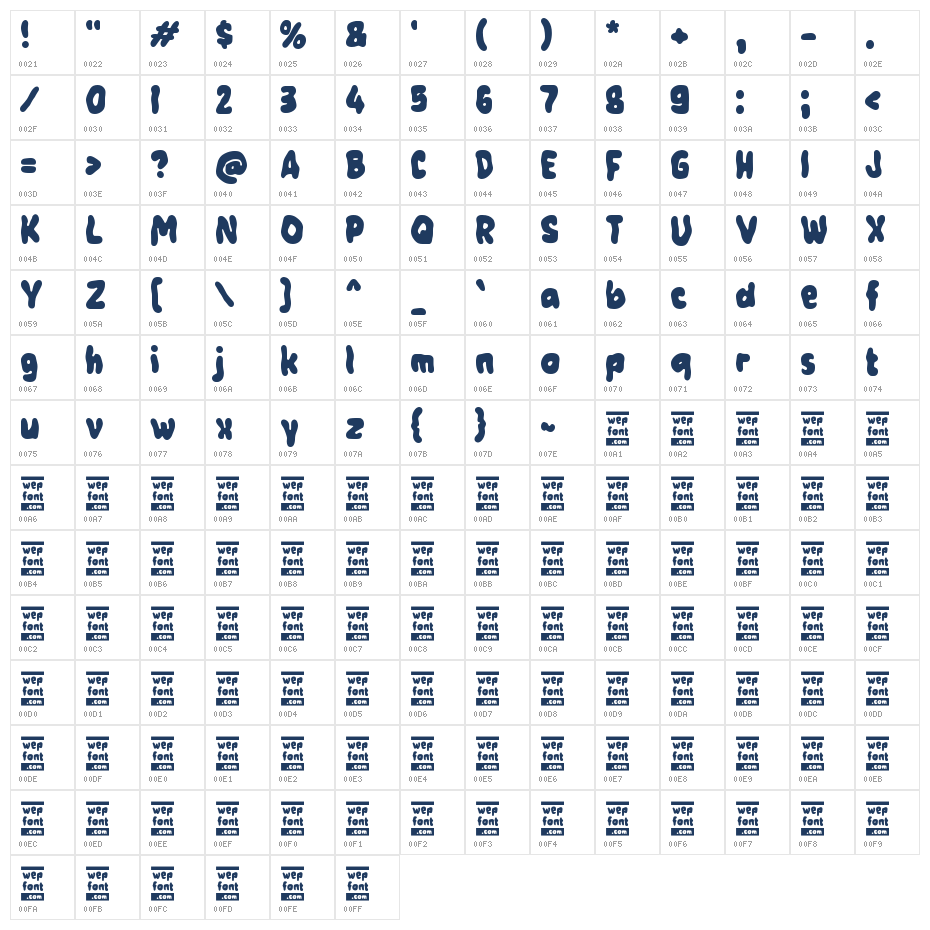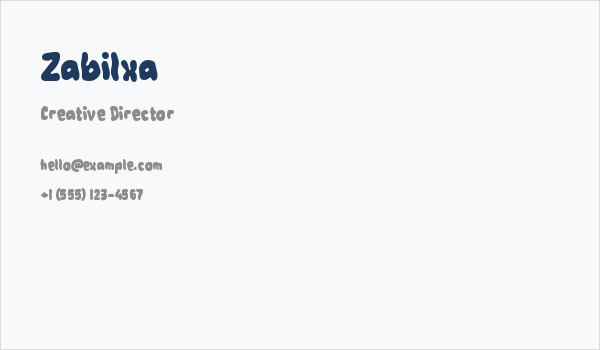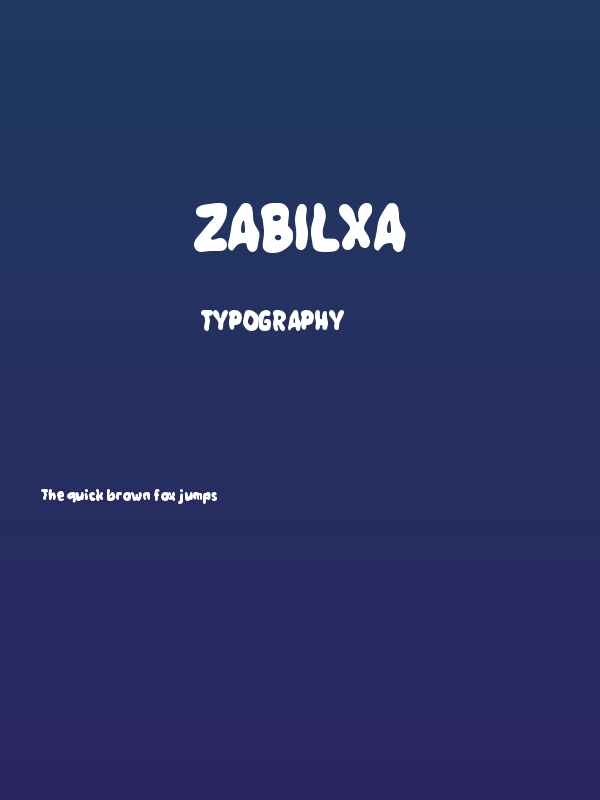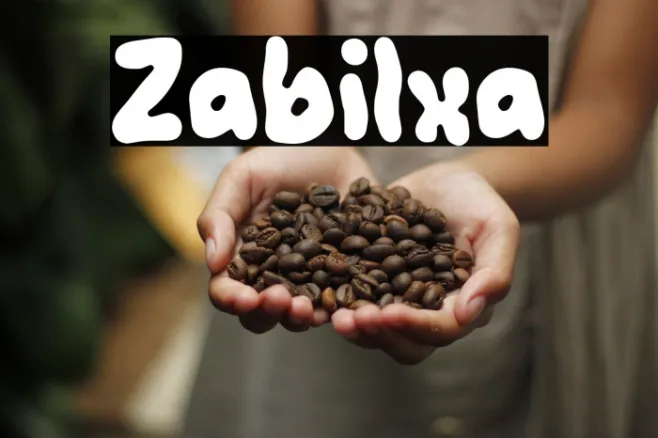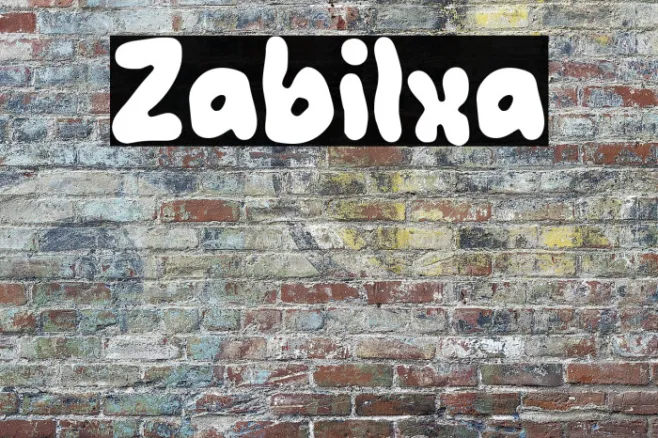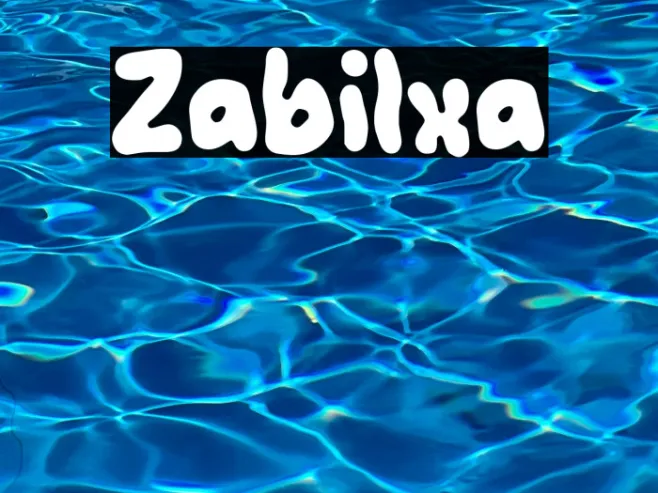
Zabilxa Font
Zabilxa Description
A playful, rounded, and bold display font with a bubbly, cartoonish style.
| Overall Style | Playful, Cartoonish, Bold |
| Use Case | Headlines, Posters, Logos, Children's media |